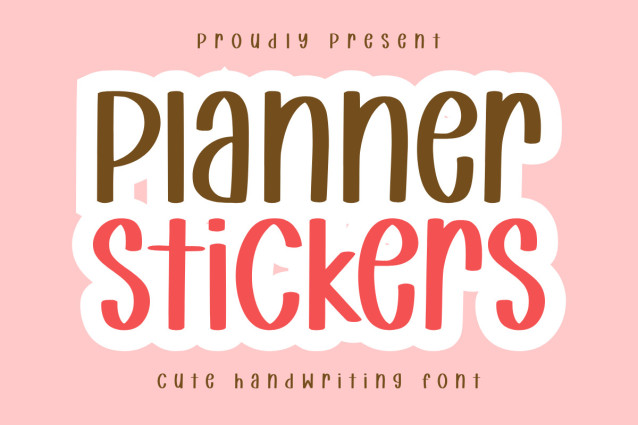
Planner Stikers Display Font is a festive and fun sans serif font, perfect for adding a touch of holiday cheer to your designs. With its playful curves and bold lines, this font is ideal for creating cards, invitations, and other holiday-themed graphics.